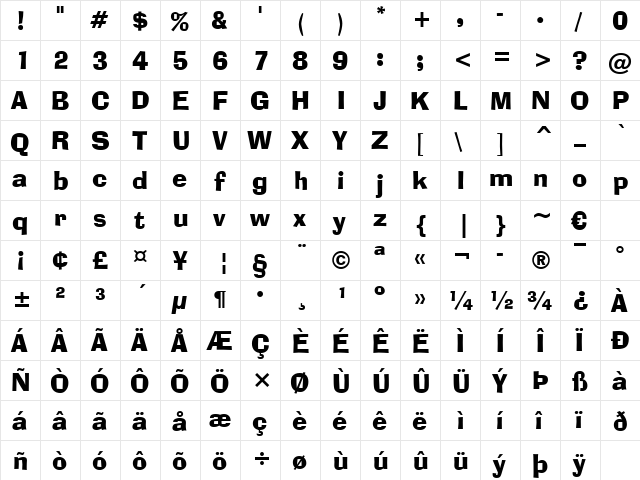
AdLib WGL4 BT Regular Font Preview
AdLib WGL4 BT Regular
Design Context for AdLib WGL4 BT Typeface
AdLib WGL4 BT offers clean, dependable letterforms without strong stylistic allegiance, making it a practical choice for designers who need flexibility.